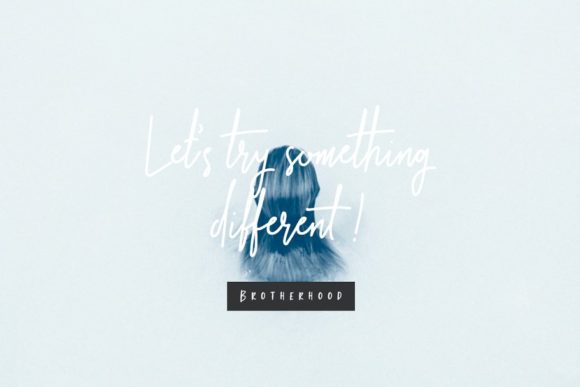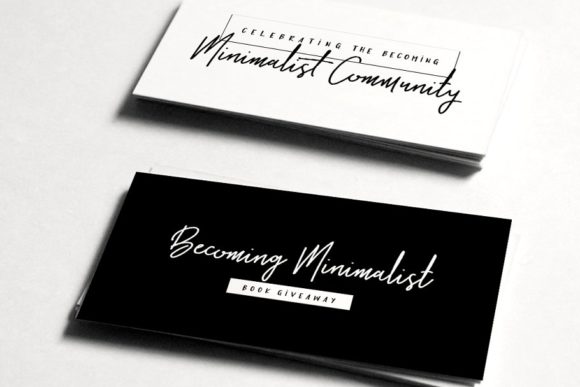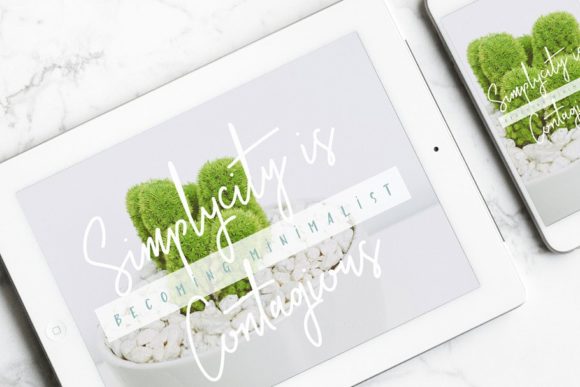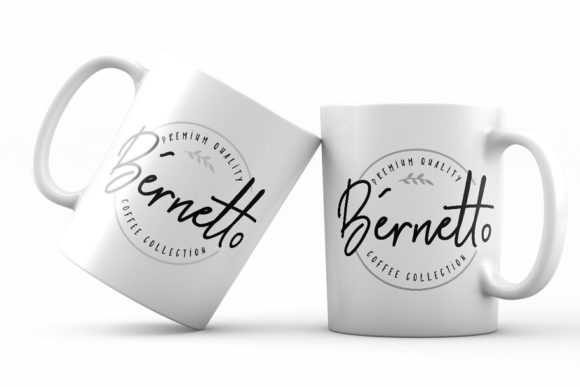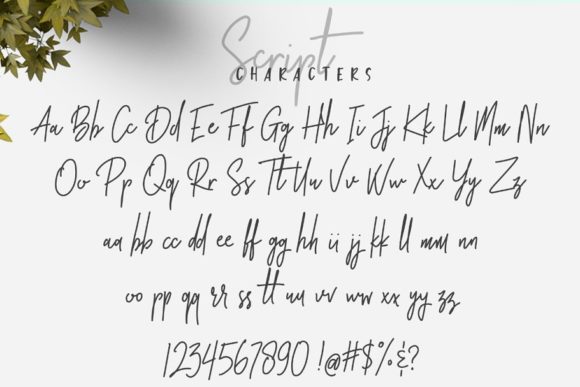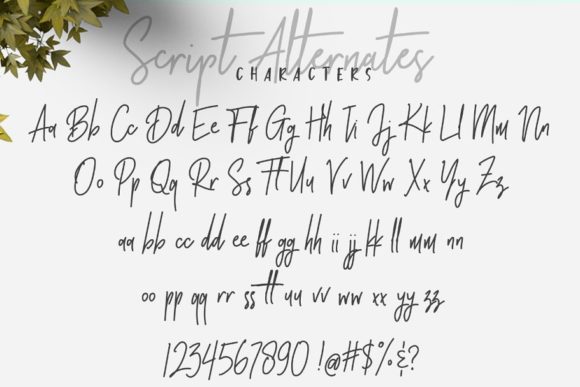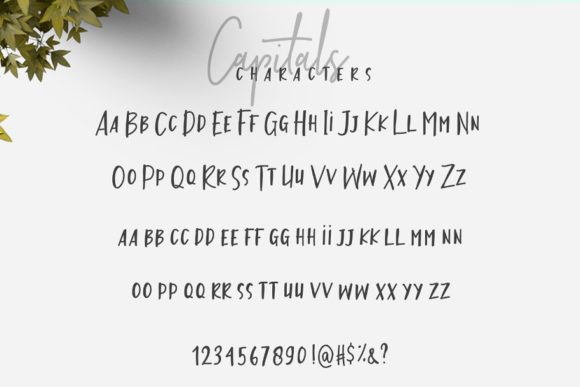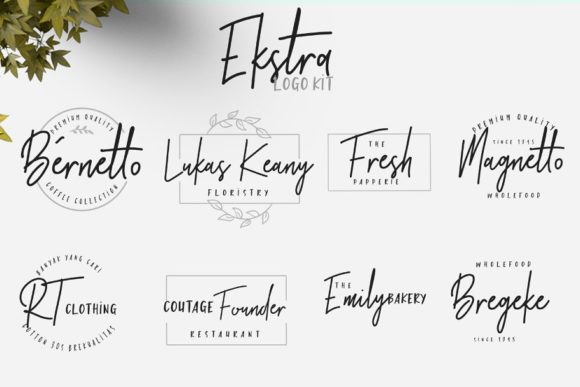
Brotherhood Duo Font
About Brotherhood Duo Font
Brotherhood is a stunning handwritten font duo with an incredible feel. Combine these two stunning fonts to turn any design project into a stand out!